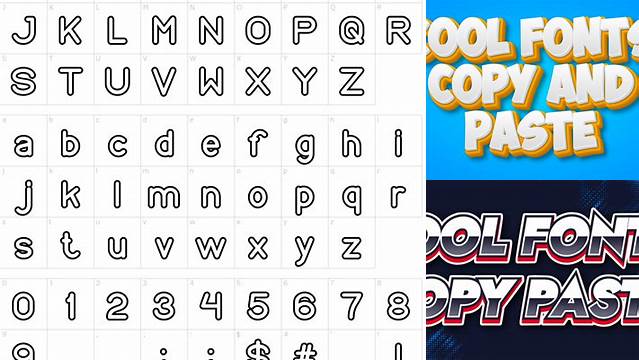
Cool Lettering Fonts: Copy & Paste Guide For Unique Text
Hey guys! Ever wanted to spice up your social media posts, messages, or designs with some cool and unique lettering? Well, you're in the right place! This guide will walk you through the awesome world of lettering fonts that you can easily copy and paste. We'll cover where to find them, how to use them, and some creative ideas to get you started. So, let's dive in and add some flair to your text!
What are Cool Lettering Fonts?
Cool lettering fonts are essentially text styles that go beyond your standard Arial or Times New Roman. They include a variety of decorative, stylized, and artistic characters that can transform plain text into eye-catching visuals. These fonts aren't usually traditional installable fonts, but rather pre-designed characters or symbols that you can copy and paste. Think of it as a quick and easy way to add a touch of creativity without needing any fancy design software.
These types of fonts come in all sorts of styles, from elegant cursive and bold block letters to quirky and whimsical designs. They can include symbols, accents, and unique character shapes that make your text stand out. The best part? You don't need to be a graphic designer to use them. Anyone can copy and paste these fonts into their messages, social media posts, documents, or any other digital platform.
Why use cool lettering fonts? Well, they're perfect for grabbing attention and expressing your personality. Whether you're creating a birthday card, designing an Instagram post, or just want to add some pizzazz to your texts, these fonts can help you do it. Plus, they're super easy to use. Just find a font you like, copy it, and paste it wherever you need it. It's a simple way to make a big impact.
Where to Find Cool Lettering Fonts
When searching for cool lettering fonts, be sure to explore different websites and tools to find the styles that best suit your needs. Don't be afraid to experiment with different fonts and combinations to create a look that's uniquely yours.
How to Copy and Paste Lettering Fonts
The process of copying and pasting lettering fonts is super straightforward. Here’s a step-by-step guide to help you get started:
- Find Your Font: Browse through online font generators, social media font tools, or symbol websites to find a lettering style that you like. Look for fonts that match the tone and style of your message or design.
- Generate Your Text: Type your desired text into the font generator or tool. Some tools may allow you to customize the font size, color, and other attributes. Play around with the settings until you achieve the look you want.
- Copy the Font: Once you're happy with the generated text, select it and copy it to your clipboard. You can usually do this by highlighting the text and pressing Ctrl+C (or Cmd+C on a Mac) or by right-clicking and selecting "Copy."
- Paste the Font: Go to the application or platform where you want to use the font and paste it into the text field. You can usually do this by pressing Ctrl+V (or Cmd+V on a Mac) or by right-clicking and selecting "Paste."
- Adjust if Necessary: Sometimes, the font may not display correctly in certain applications or platforms. If this happens, try using a different font or adjusting the text settings in the application. You may also need to ensure that the platform supports Unicode characters, as some lettering fonts rely on these.
So there you have it! Cool lettering fonts are a fantastic way to jazz up your text and add a personal touch to your digital content. With a wide variety of styles to choose from and easy copy-and-paste functionality, anyone can create eye-catching designs and messages. Whether you're looking to enhance your social media posts, create unique invitations, or add some flair to your presentations, lettering fonts are a versatile tool that can help you achieve your creative goals. Happy lettering, and have fun experimenting with different fonts and styles to find the perfect look for your needs!